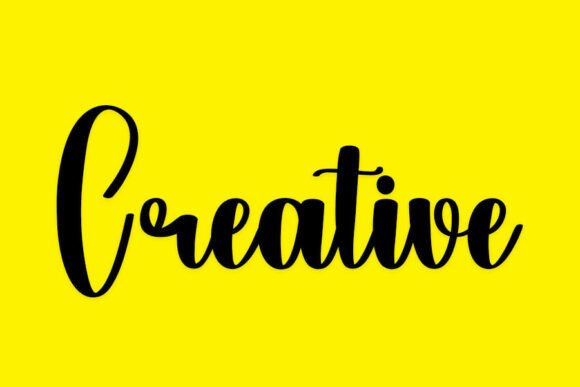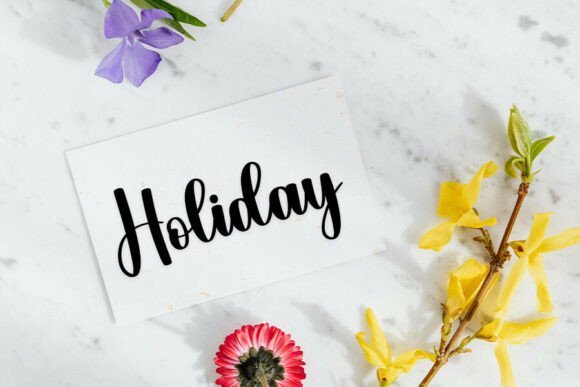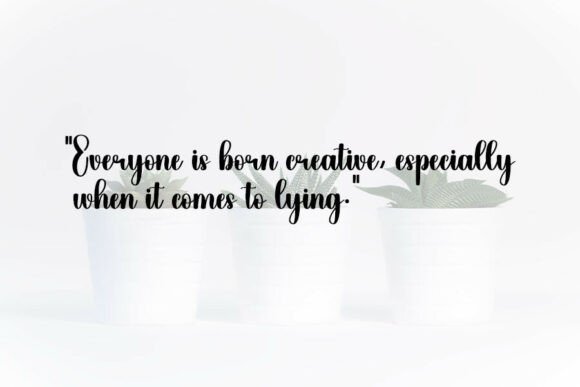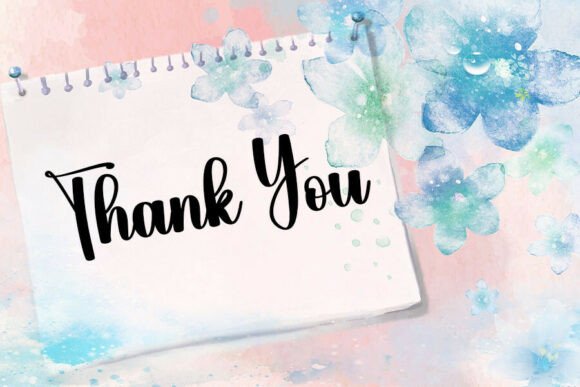
Cowboy Font: A Sweet and Cursive Handwritten Font for Elegant Designs
Are you looking for a font that can add a touch of elegance and romance to your designs? Look no further than the Cowboy font! This beautiful, cursive handwritten font is perfect for a variety of design projects, from branding and logos to wedding materials and greeting cards. In this article, we’ll take a closer look at the Cowboy font and explore its features, uses, and benefits.
What is Cowboy Font?
Cowboy is a sweet and cursive handwritten font that is designed to add a touch of joy and romance to your designs. Its gentle, flowing lines and elegant curves make it perfect for creating beautiful and sophisticated designs. Whether you’re looking to create a logo, a wedding invitation, or a marketing promotion, the Cowboy font is sure to impress.
Features of Cowboy Font
The Cowboy font has several features that make it stand out from other fonts. Some of its key features include:
- Sweet and cursive design: The Cowboy font has a beautiful, cursive design that is both elegant and playful.
- Handwritten feel: The font has a handwritten feel that gives it a personal and unique touch.
- Versatile: The Cowboy font is versatile and can be used for a variety of design projects, from branding and logos to wedding materials and greeting cards.
- Elegant and casual: The font is both elegant and casual, making it perfect for designs that need to look sophisticated but not too formal.
Uses of Cowboy Font
The Cowboy font is perfect for a variety of design projects, including:
- Branding and logos: The Cowboy font is perfect for creating beautiful and elegant logos that will help your brand stand out.
- Wedding materials: The font is perfect for creating beautiful wedding invitations, programs, and other materials.
- Greeting cards: The Cowboy font is perfect for creating beautiful and elegant greeting cards for special occasions.
- Fashion and lookbooks: The font is perfect for creating stylish and sophisticated lookbooks and fashion designs.
- Marketing promotions: The Cowboy font is perfect for creating eye-catching and elegant marketing promotions.
Benefits of Using Cowboy Font
There are several benefits to using the Cowboy font in your designs. Some of the benefits include:
- Elegant and sophisticated designs: The Cowboy font will help you create elegant and sophisticated designs that will impress your clients and audience.
- Unique and personal touch: The font’s handwritten feel gives it a unique and personal touch that will help your designs stand out.
- Versatility: The Cowboy font is versatile and can be used for a variety of design projects.
- Easy to read: The font is easy to read, making it perfect for designs that need to communicate a message.
Tips for Using Cowboy Font
Here are some tips for using the Cowboy font in your designs:
- Use it for headlines and titles: The Cowboy font is perfect for headlines and titles, where its elegant and cursive design can shine.
- Pair it with other fonts: The font can be paired with other fonts to create a unique and interesting design.
- Use it for branding and logos: The Cowboy font is perfect for creating beautiful and elegant logos that will help your brand stand out.
- Experiment with different colors and textures: The font looks great in a variety of colors and textures, so don’t be afraid to experiment and find the perfect combination for your design.
In conclusion, the Cowboy font is a beautiful and elegant cursive handwritten font that is perfect for a variety of design projects. Its sweet and gentle design makes it perfect for adding a touch of joy and romance to your designs. With its versatility, elegance, and handwritten feel, the Cowboy font is sure to become a favorite among designers and crafters.
Whether you’re looking to create a logo, a wedding invitation, or a marketing promotion, the Cowboy font is sure to impress. So why not give it a try and see how it can elevate your designs to the next level?